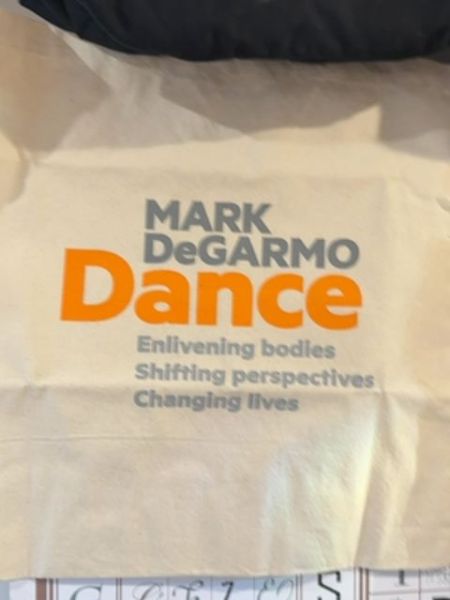
Mark DeGarmo Dance
A dance program dedicated to enlivening bodies, shifting perspectives, and changing lives through the art of dance.
The typography uses a clean, sans-serif font that is both modern and professional. The name 'Mark DeGarmo' is in a solid, muted tone, while 'Dance' is featured prominently in a vivid orange, highlighting its importance. The alignment is left-justified, creating a structured and accessible visual flow.
The packaging is a simple fabric tote bag featuring a bold display of typography. It uses contrasting colors to emphasize the brand and mission statements, creating a visually striking and modern design.